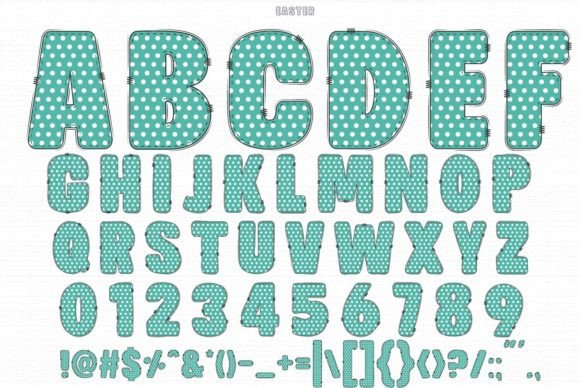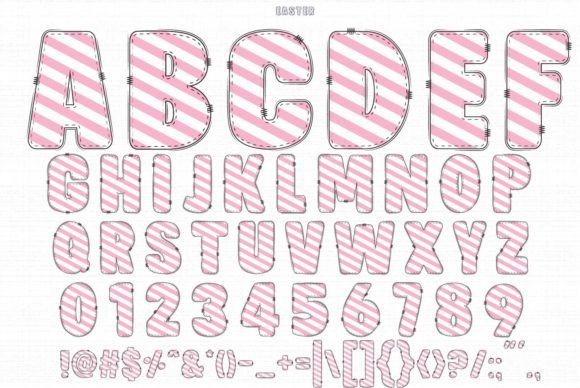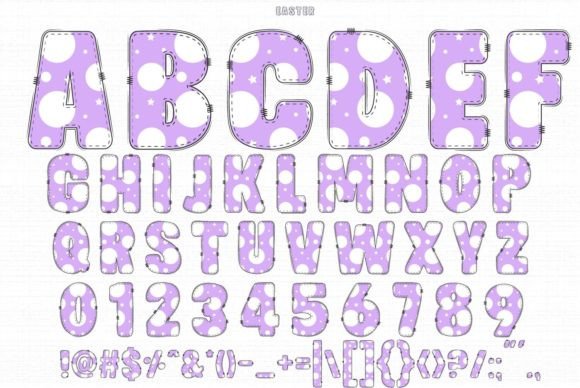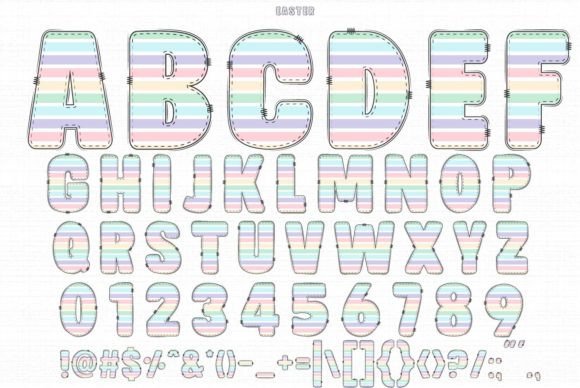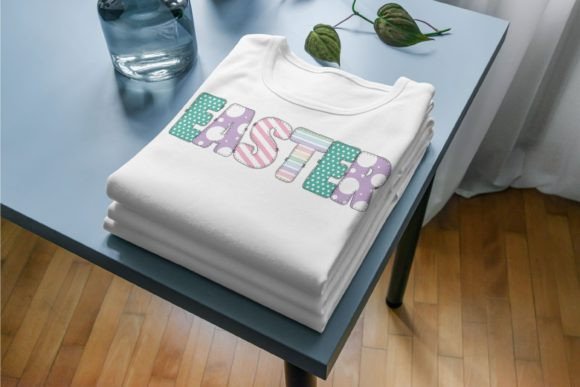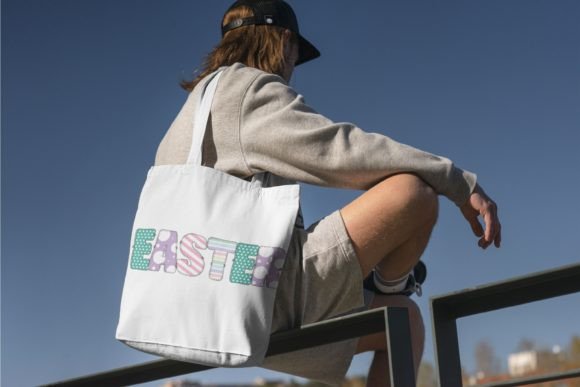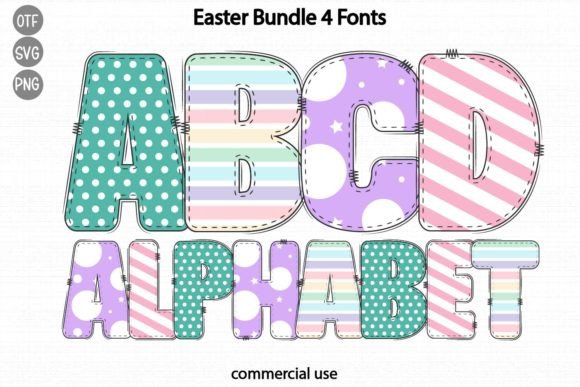
Easter Font: Add a Touch of Sweetness to Your Easter Creations
Easter is just around the corner, and what better way to celebrate than with a beautiful and unique Easter font? Introducing Easter, a sweet, chic, and bubbly color font that’s perfect for adding a touch of whimsy to your Easter creations. In this article, we’ll take a closer look at this delightful font, its features, and how you can use it to bring your Easter designs to life.
What is Easter Font?
Easter is a color font that’s designed to add a playful and festive touch to your Easter-themed designs. Its sweet and bubbly style makes it perfect for creating eye-catching Easter cards, decorations, and other craft projects. The font comes in two versions: black and color. The black version is compatible with Cricut Design Space and other cutting machines, making it ideal for crafters who love to work with vinyl, iron-on, and paper crafts.
Key Features of Easter Font
- Sweet and Chic Design: Easter font features a unique and playful design that’s perfect for Easter-themed projects.
- Color and Black Versions: The font comes in both color and black versions, giving you flexibility in your design choices.
Tips for Using Easter Font
- Experiment with Different Sizes: Easter font looks great in a variety of sizes, so don’t be afraid to experiment and find the perfect size for your project.
- Pair with Other Fonts: Easter font pairs well with other fonts, so try combining it with your favorite fonts to create a unique look.
- Use in Combination with Images: Easter font looks great when used in combination with images, such as Easter eggs, bunnies, and flowers.
Easter font is a beautiful and unique font that’s perfect for adding a touch of sweetness to your Easter creations. With its sweet and bubbly design, compatibility with popular design programs, and flexibility in use, it’s a great addition to any designer’s or crafter’s toolkit. Whether you’re creating Easter cards, decorations, or other craft projects, Easter font is sure to bring your designs to life.